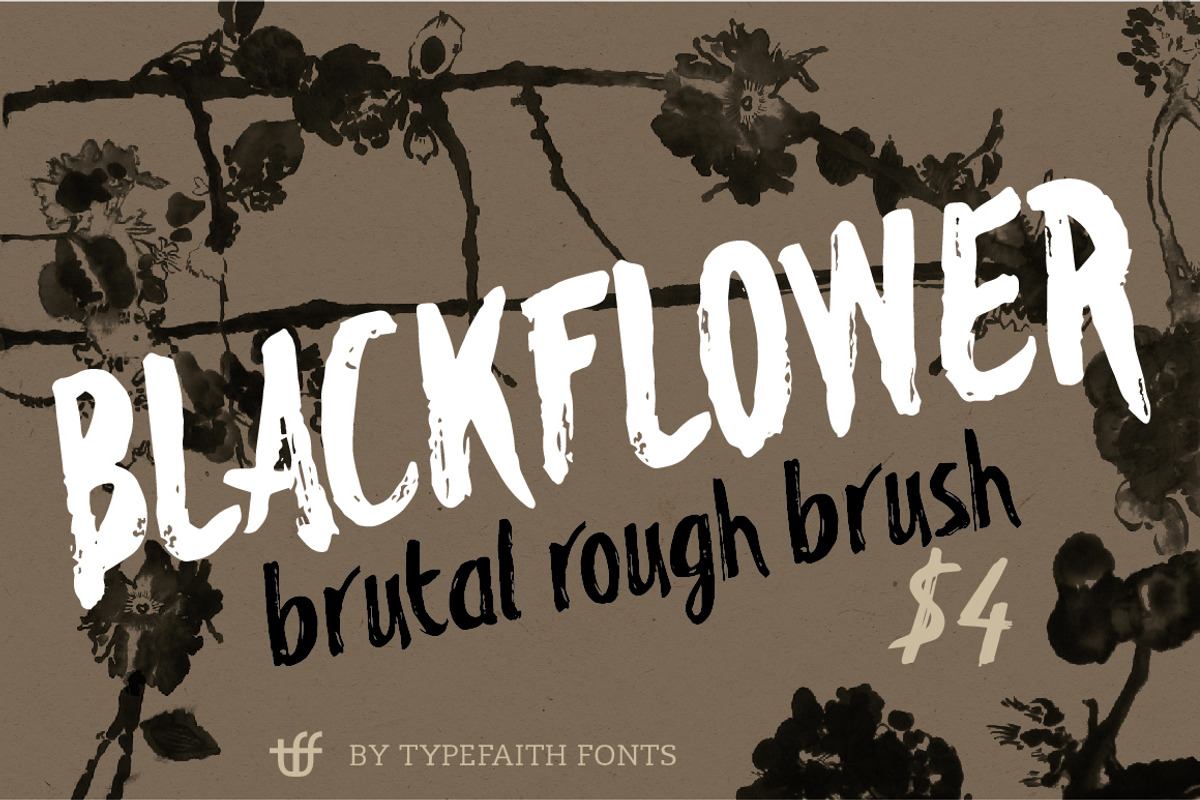
Blackflower Font Free Download is a bold and elegant typeface that blends modern sophistication with a touch of artistic flair. With its striking letterforms and refined details, Blackflower is perfect for luxury branding, headlines, logos, invitations, and any project that requires a stylish, high-impact design.
The font’s graceful yet strong character ensures that your designs stand out while maintaining a professional appearance. Blackflower includes uppercase and lowercase letters, punctuation, multilingual support, and is fully compatible with both Mac and Windows systems.